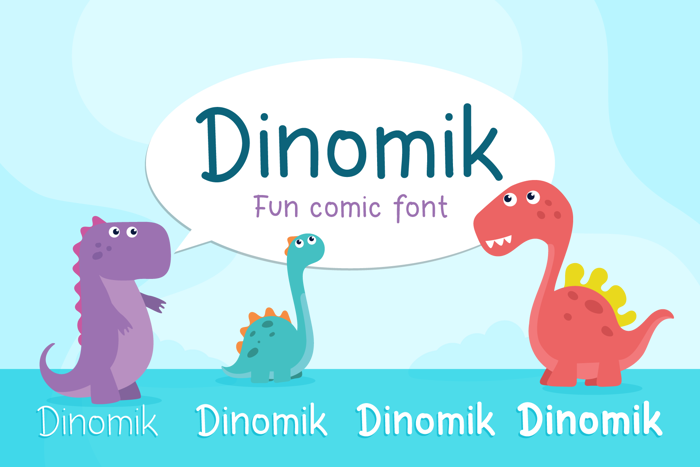
Dinomik Semibold Font
Semibold Style
Introducing Dinomik, a fun comic font that will make your day more cheerful. This font is perfect for you who find a cute hand drawn font.